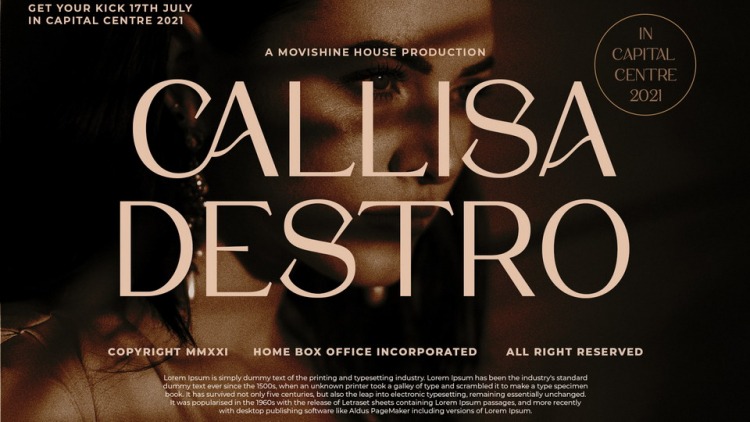
Stigma Sans Serif Font
This font is one of the most elegant, exquisite yet strong font design with modern vibe. Masterfully designed to become a true favorite, this font has the potential to bring each of your creative ideas to the highest level!
Stigma Display Typeface